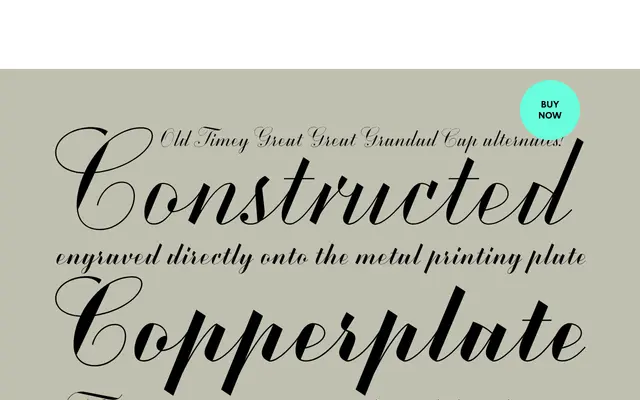
Copperscript
G-Type · Nick Cooke
A constructed Copperplate Script by Nick Cooke, derived from English Roundhand and updated with a modern weight axis and contextual lead-in and end characters.
Built on the tradition of English Roundhand, the design runs across six weights from ExtraLight to ExtraBold, with a variable font bundled in the family pack for infinite intermediate steps. Contextual alternates trigger lead-in and end characters automatically, and three stylistic sets offer alternate capitals, plus variants for the lowercase 'r' and 'z'. Directional arrows and an extended Latin character set with broad European language coverage round out a practical formal script for display and packaging work.
A constructed Copperplate Script derived from English Roundhand, placing it firmly in the formal script tradition with deliberate structural modernity applied over the archaic style.